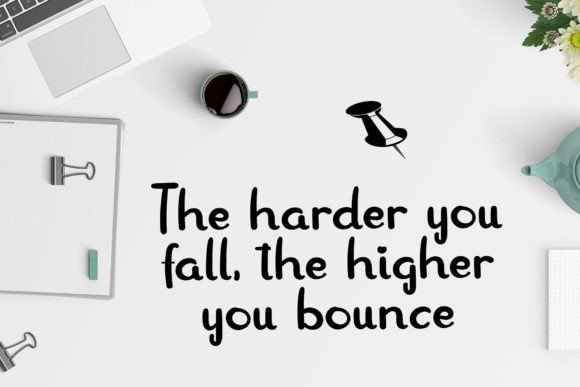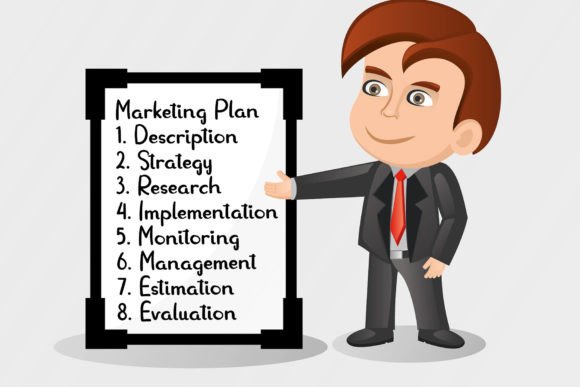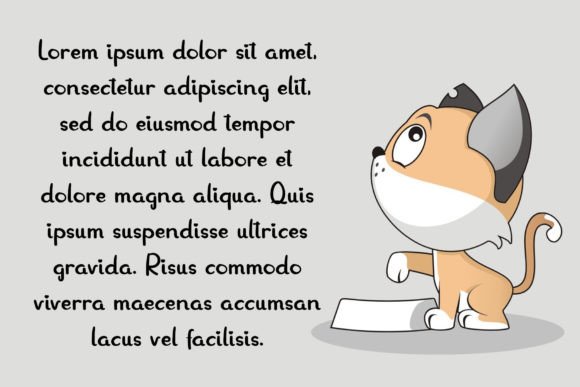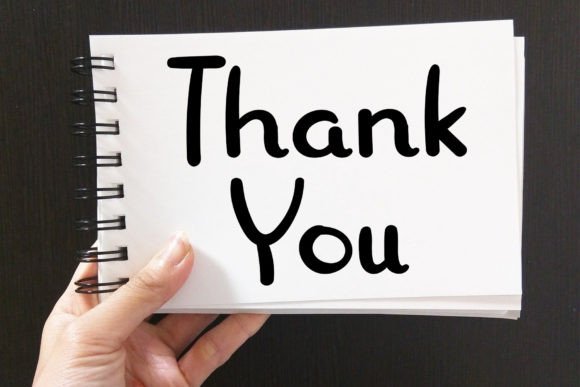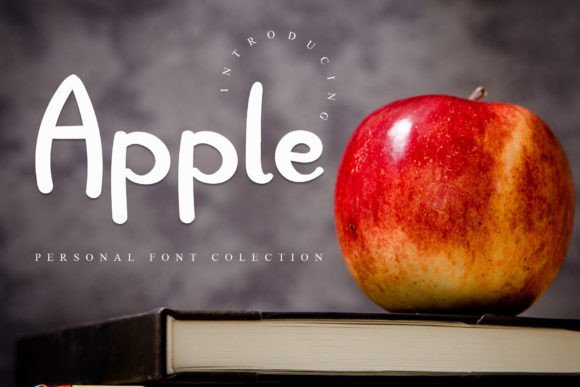
Introducing Apple Font: The Perfect Addition to Your Crafty Projects
Are you a designer or crafter looking for a unique and eye-catching font to add to your projects? Look no further than Apple Font! This neat and casual handwritten font is sure to bring a touch of personality and whimsy to your designs. In this article, we’ll take a closer look at Apple Font, its features, and how you can use it to elevate your crafty projects.
What is Apple Font?
Apple Font is a beautiful, handwritten font that is reminiscent of casual, everyday writing. Its neat and legible design makes it perfect for a wide range of applications, from crafting and scrapbooking to digital design and typography. With its friendly and approachable feel, Apple Font is sure to add a personal touch to your projects and make them stand out from the crowd.
Key Features of Apple Font
So, what makes Apple Font so special? Here are just a few of its key features:
- Handwritten design: Apple Font has a beautifully handwritten design that gives it a personal and unique feel.
- Neat and legible: Unlike some handwritten fonts, Apple Font is neat and easy to read, making it perfect for use in a wide range of applications.
- Casual and friendly: Apple Font has a friendly and approachable feel that makes it perfect for crafty projects, social media graphics, and more.
- Versatile: Apple Font can be used in a wide range of applications, from digital design to print materials.
How to Use Apple Font in Your Crafty Projects
So, how can you use Apple Font in your crafty projects? Here are a few ideas to get you started:
- Scrapbooking: Add Apple Font to your scrapbook pages for a personal touch. Use it to title your pages, label photos, or add journaling.
- Crafting: Use Apple Font to add a personal touch to your craft projects, such as card making, gift tags, and more.
- Digital design: Apple Font is perfect for use in digital design, including social media graphics, blog posts, and more.
- Typography: Use Apple Font to create beautiful typographic designs, including quotes, posters, and more.
Tips for Getting the Most Out of Apple Font
Here are a few tips for getting the most out of Apple Font:
- Experiment with different colors: Apple Font looks great in a wide range of colors, so don’t be afraid to experiment and find the perfect color for your project.
- Mix and match with other fonts: Apple Font pairs well with a wide range of other fonts, so try mixing and matching it with other fonts to create a unique look.
- Use it sparingly: While Apple Font is a beautiful font, it can be overwhelming if used too much. Use it sparingly to add a touch of personality to your projects.
In conclusion, Apple Font is a beautiful and versatile handwritten font that is perfect for adding a personal touch to your crafty projects. With its neat and legible design, friendly and approachable feel, and wide range of applications, Apple Font is sure to become a favorite among designers and crafters. So why not give it a try and see the amazing results for yourself?